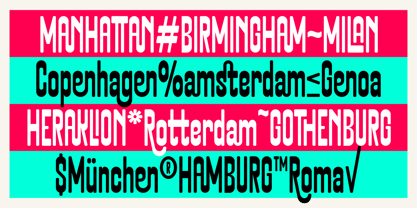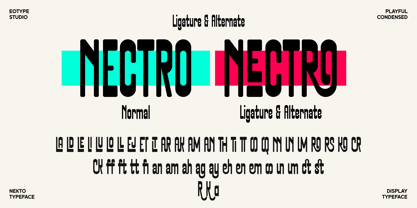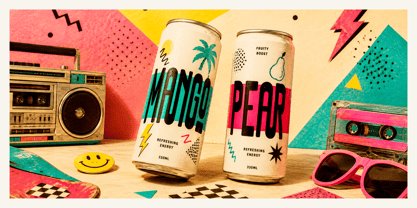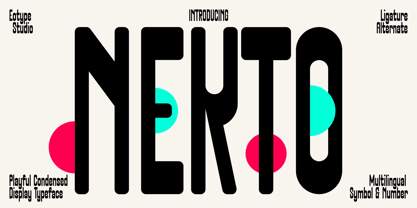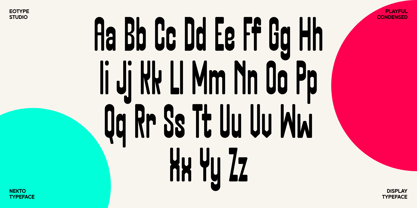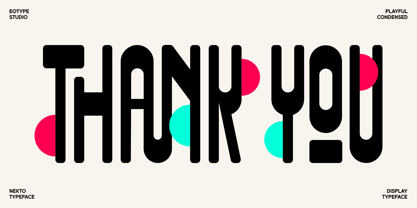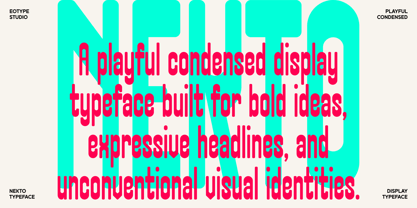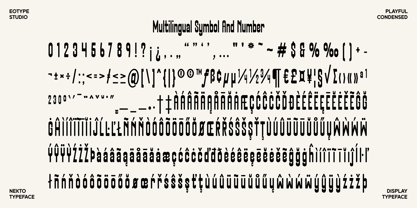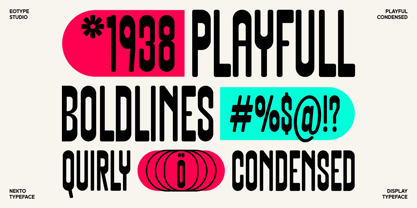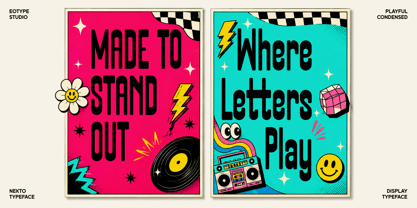
Nekto
NEKTO is a playful and expressive condensed display typeface designed to bring a bold personality to your typography. With its tall proportions, narrow structure, rounded curves, and distinctive geometric details, NEKTO combines a fun retro attitude with a fresh contemporary aesthetic.
Designed to stand out at large sizes, NEKTO is perfect for creating memorable headlines, logos, posters, editorial layouts, packaging, and visual identities. Its condensed proportions allow you to create strong typographic compositions while maintaining a unique and energetic character.
NEKTO also features a selection of ligatures and alternate characters, giving you more freedom to experiment with letter combinations and create custom-looking typography. These stylistic details make every word feel more dynamic and distinctive.
Whether you're designing a bold brand identity, a music poster, fashion artwork, streetwear graphics, or an eye-catching social media campaign, NEKTO adds a playful and unconventional touch to your designs.